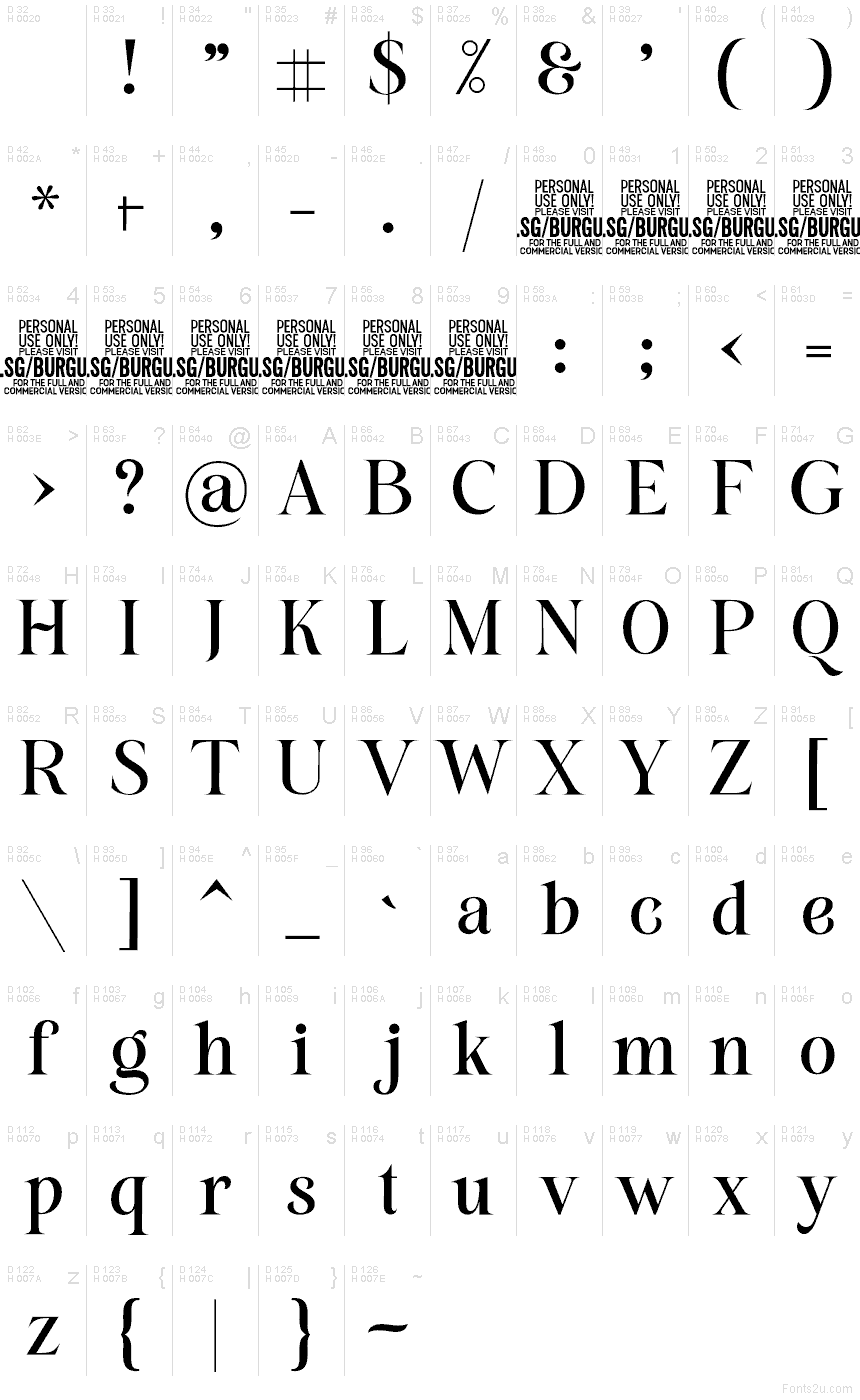
Burgundia PERSONAL USE Regular
Burgundia font by Mans Greback is a free serif font characterized by its classical elegance and modern flair. The combination of tall uppercase letters with curvaceous lowercase characters brings refinement to each displayed text. And with subtle design elements inspired by the past, this fantastic creation can wonderfully add sophistication and class to your projects.